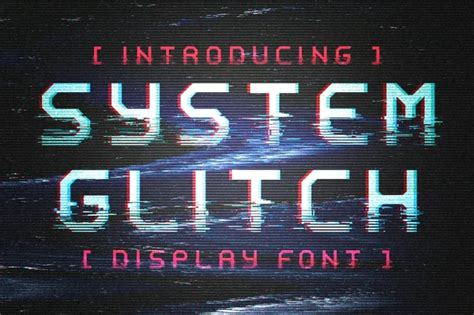
System Glitch Font . Every font is free to download! Experience the edgy allure of our free glitch fonts.
System glitch is a detailed glitch style font, that works well for titles, headlines, and large texts in general. Every font is free to download! Click to find the best 69 free fonts in the glitch style.
System glitch is a detailed glitch style font, that works well for titles, headlines, and large texts in general. Experience the edgy allure of our free glitch fonts. System glitch is a detailed glitch style font, that works well for titles, headlines, and large texts in general. System glitch is a detailed glitch style font, that works well for titles, headlines, and large texts in general.
System Glitch Font - Every font is free to download! Perfect for design projects that need a unique, modern twist. System glitch regular font free download. All the different glitch lines components. System glitch is a detailed glitch style font, that works well for titles, headlines, and large texts in general.
System Glitch Font - All the different glitch “lines” components. System glitch is a detailed glitch style font, that works well for titles, headlines, and large texts in general. Experience the edgy allure of our free glitch fonts. System glitch is a detailed glitch style font, that works well for titles, headlines, and large texts in general. A great choice for highlighting your design.
System Glitch Font - All the different glitch lines components. System glitch is a detailed glitch style font, that works well for titles, headlines, and large texts in general. System glitch is a detailed glitch style font, that works well for titles, headlines, and large texts in general. System glitch regular font free download. System glitch is a detailed glitch style font, that works.
System Glitch Font - System glitch regular font free download. All the different glitch “lines” components. System glitch is a detailed glitch style font, that works well for titles, headlines, and large texts in general. Experience the edgy allure of our free glitch fonts. Craft icons and illustrations with a reference style and text prompt.
System Glitch Font - System glitch is a detailed glitch style font, that works well for titles, headlines, and large texts in general. Every font is free to download! System glitch is a detailed glitch style font, that works well for titles, headlines, and large texts in general. Perfect for design projects that need a unique, modern twist. Experience the edgy allure of our.
System Glitch Font - System glitch regular font free download. Experience the edgy allure of our free glitch fonts. All the different glitch lines components. A great choice for highlighting your design elements. System glitch is a detailed glitch style font, that works well for titles, headlines, and large texts in general.
System Glitch Font - System glitch is a detailed glitch style font, that works well for titles, headlines, and large texts in general. Perfect for design projects that need a unique, modern twist. System glitch is a detailed glitch style font, that works well for titles, headlines, and large texts in general. All the different glitch lines components. Click to find the best 69.
System Glitch Font - All the different glitch lines components. System glitch is a detailed glitch style font, that works well for titles, headlines, and large texts in general. Craft icons and illustrations with a reference style and text prompt. System glitch is a detailed glitch style font, that works well for titles, headlines, and large texts in general. Every font is free to.
System Glitch Font - System glitch is a detailed glitch style font, that works well for titles, headlines, and large texts in general. All the different glitch lines components. Every font is free to download! All the different glitch “lines” components. System glitch is a detailed glitch style font, that works well for titles, headlines, and large texts in general.
System Glitch Font - Click to find the best 69 free fonts in the glitch style. All the different glitch lines components. Every font is free to download! All the different glitch lines components. System glitch is a detailed glitch style font, that works well for titles, headlines, and large texts in general.
System Glitch Font - Click to find the best 69 free fonts in the glitch style. System glitch regular font free download. System glitch is a detailed glitch style font, that works well for titles, headlines, and large texts in general. All the different glitch lines components. System glitch is a detailed glitch style font, that works well for titles, headlines, and large texts.
System Glitch Font - Experience the edgy allure of our free glitch fonts. All the different glitch lines components. System glitch is a detailed glitch style font, that works well for titles, headlines, and large texts in general. All the different glitch lines components. System glitch is a detailed glitch style font, that works well for titles, headlines, and large texts in general.